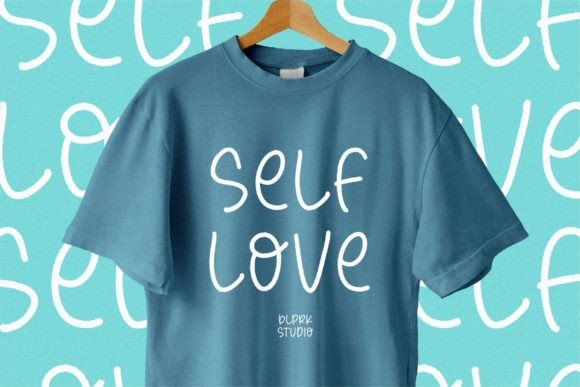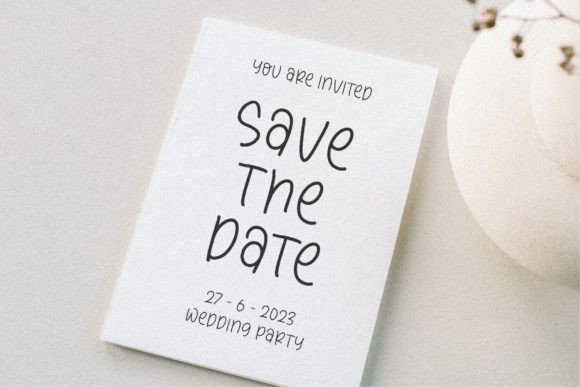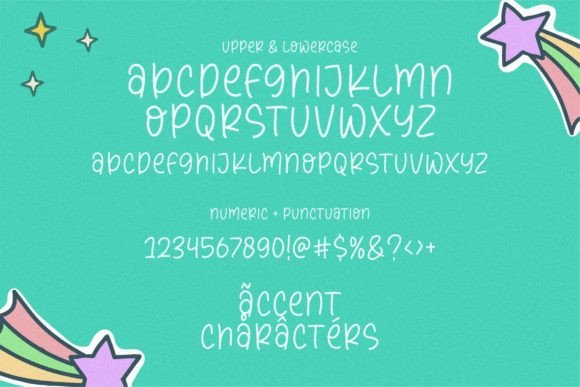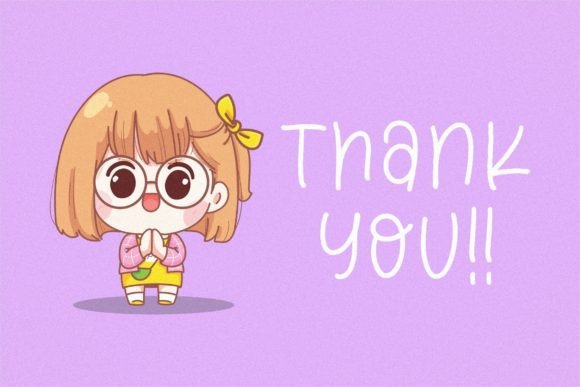
Introduction to Dream Peaches Font Font
Fonts play a crucial role in design, and the Dream Peaches Font font is a typeface that brings both character and versatility to any project. Whether you’re working on a branding project, a website, or a print design, the Dream Peaches Font font offers a unique style that can elevate your work.
Dream Peaches β a monoline handwritten font thatβs clean, elegant, and perfect for a range of design projects.
With its smooth, effortless lines and understated sophistication, this font is the perfect choice for those who want a modern look thatβs still timeless in its appeal Crafted with precision and care, this font is incredibly versatile and can be used for a range of design projects, including logos, branding, invitations, packaging, and more.
Key Features of Dream Peaches Font Font
Why Choose Dream Peaches Font Font?
The Dream Peaches Font font is more than just a typeface β it’s a design tool that helps you communicate your message with style and clarity. Its unique character set and versatile design make it suitable for a wide range of applications, from elegant invitations to bold headlines.
With its carefully crafted letterforms and balanced proportions, the Dream Peaches Font font ensures readability and visual appeal across all mediums.
What makes Dream Peaches Font font special?
The Dream Peaches Font font stands out with its unique design, exceptional readability, and versatility across various design applications.